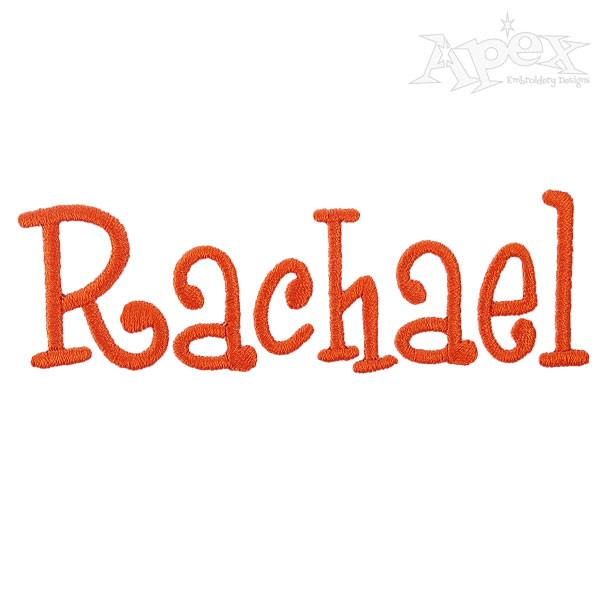
Boys R Gross Embroidery Font 2
There is an infectious, carefree joy captured in the spirited declarations and scribbled banter of youth. When drafting the Boys R Gross Embroidery Font 2, our digitizing studio wanted to capture that vivacious, nostalgic energy?evoking backyard clubhouse signs, playful sibling rivalries, and the sweet irreverence of childhood. Styled with an animated baseline and hand-drawn spirit, this satin stitch alphabet transforms casual lettering into polished, heirloom-grade embroidery that radiates personality, warmth, and whimsical charm across every stitch.
- Smooth, continuous satin stitch digitizing throughout all characters
Project Ideas for Boys R Gross Embroidery Font 2
The lively, off-kilter charm of this font makes it a delightful choice for bespoke gifts and personalized youth gear:
- Back-to-School Essentials: Monogram denim jackets, canvas backpacks, and lunch boxes with energetic, kid-approved names or initials.
- Playroom & Nursery Decor: Stitch whimsical quotes, toy bin labels, or birth year keepsakes onto durable cotton canvas caddies and growth charts.
- Custom Sibling Loungewear: Create memorable matching pajama sets, playful birthday t-shirts, and weekend hoodies featuring spirited rivalries or inside jokes.
- Camp & Adventure Gear: Personalize duffel bags, pennant banners, and bucket hats for summer camp or outdoor weekend excursions.
- Cheeky Gift Projects: Embroider playful mottos on casual kitchen aprons, pet bandanas, or personalized tote bags for loved ones who never lost their playful streak.
To maximize the energetic posture of this lettering style, consider these proven placements:
- Center Chest & Back Yokes: Use the 2-inch or 3-inch sizes across sweatshirt chests or the upper back yoke of denim jackets for a bold, graphic look.
- Pocket Surrounds: Perch names or short quips directly above a denim shirt pocket or peeking out over a patch pocket lip using the 0.75-inch scale.
- Curved Brim & Crown Placements: The compact nature of the 0.75-inch glyphs makes them splendid for the curved front panels of baseball caps and bucket hats.
- Diagonal Corner Framing: Position multi-letter phrases diagonally on the bottom corners of personalized beach towels, canvas pillows, or throw blankets.
Boys R Gross Embroidery Font 2 Craft & Letterform Details
Digitizing a font with irregular, hand-drawn character requires meticulous structural engineering behind the scenes. Rather than relying on uniform, rigid geometry, each letterform in Boys R Gross Embroidery Font 2 is carefully mapped with dynamic column widths and flowing angle inclinations that replicate genuine pen strokes. We specifically adjusted lead-in stitches and travel runs to eliminate unnecessary jump trims while safeguarding the structural integrity of every sharp turn and gentle curve.
Every satin column is built with calibrated density and generous push-pull compensation. This ensures that when stitching across knits, textured loop terry, or heavyweight twill, the strokes maintain their full, rounded presence without thinning out or cutting into the base textile. The uppercase characters command authority with their bold, chunky proportions, while the lowercase letters bounce playfully along the baseline?resulting in an embroidery suite that stitches out buttery smooth with a high-luster, tactile finish.